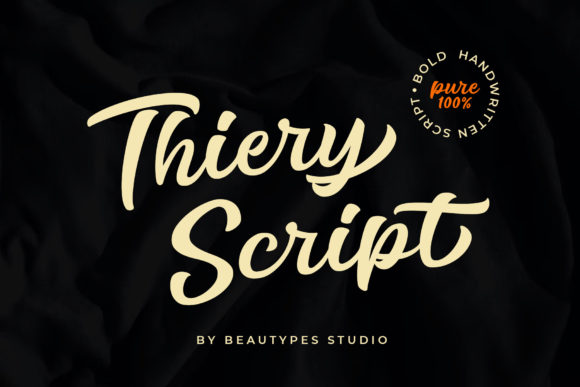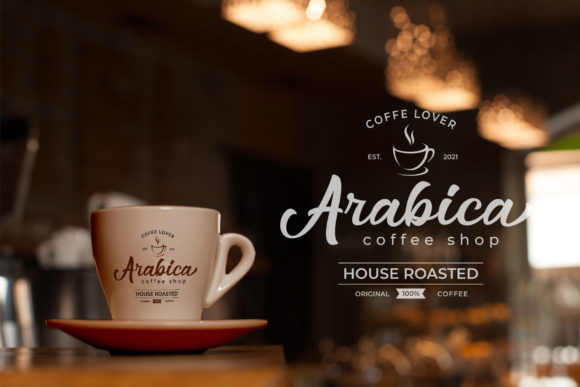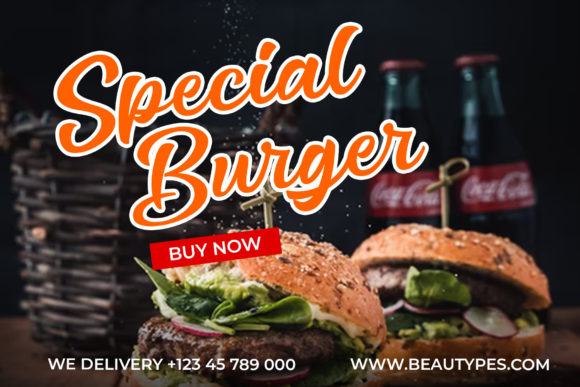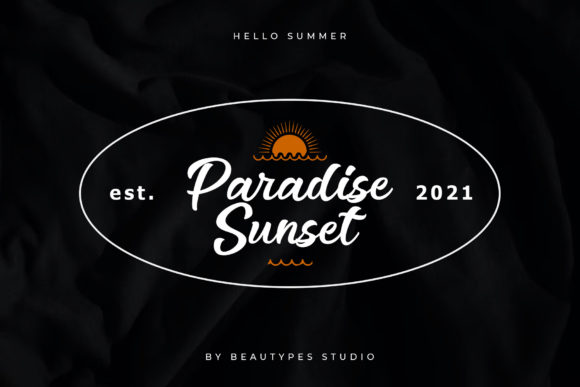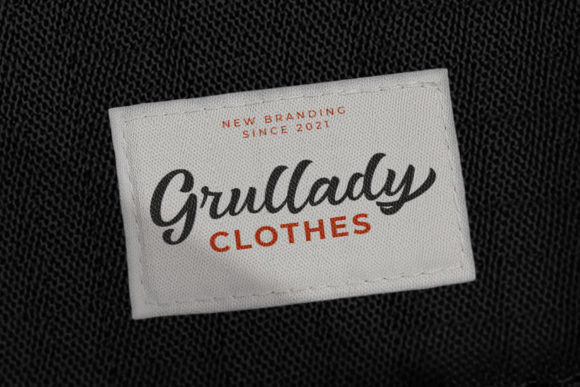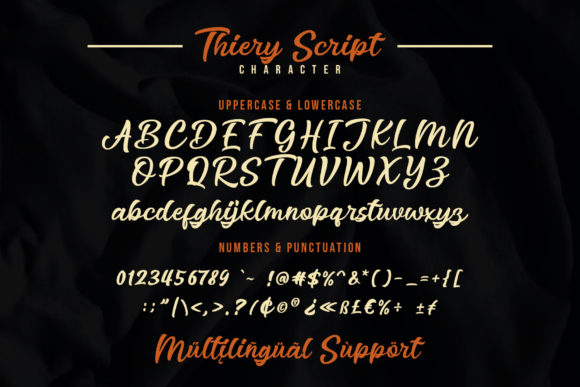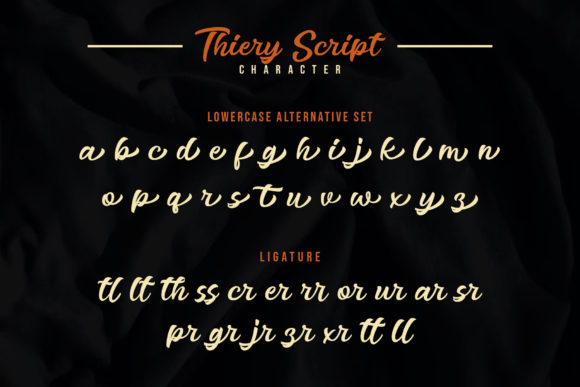
Thiery Script Font
About Thiery Script Font
Thiery Script is a stunning script font, an amazing option for branding and logotype projects. This font has a touch of modern, trendy, and elegant design.